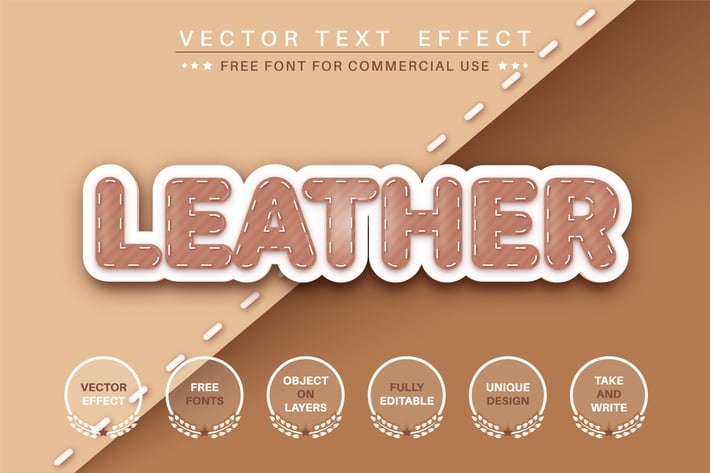
Leather product - editable text effect, font style
Hello! I'm happy to introduce my new text effect "Leather product". Just write your word and the effect will apply! Be as creative as you like to be in expressing yourself using this unique “Leather product”. Effect is perfect for any project that needs a unique handy touch whatever else your imagination leads you to!